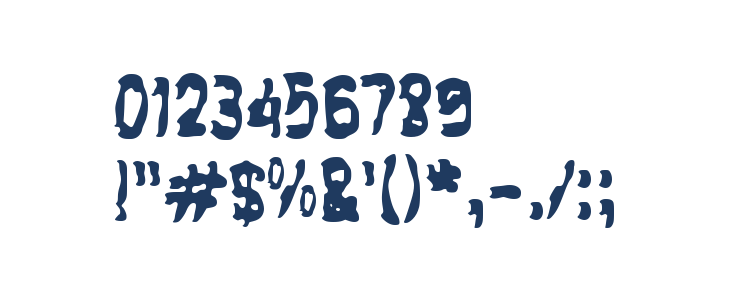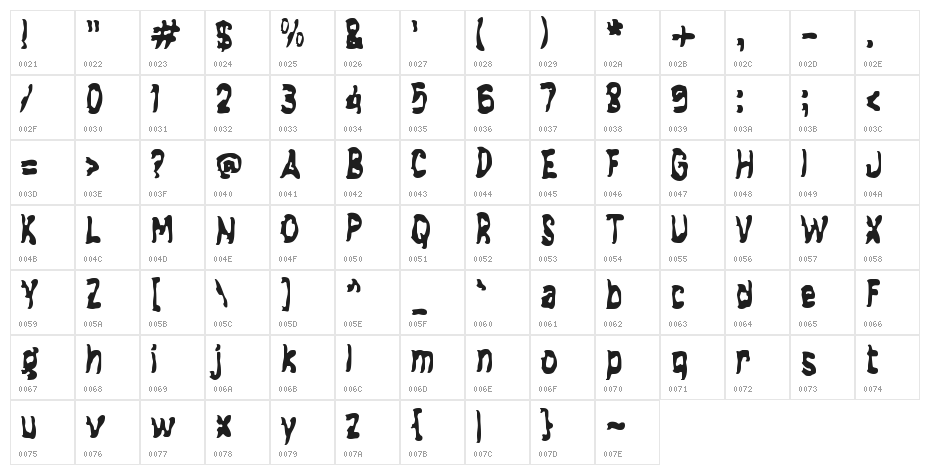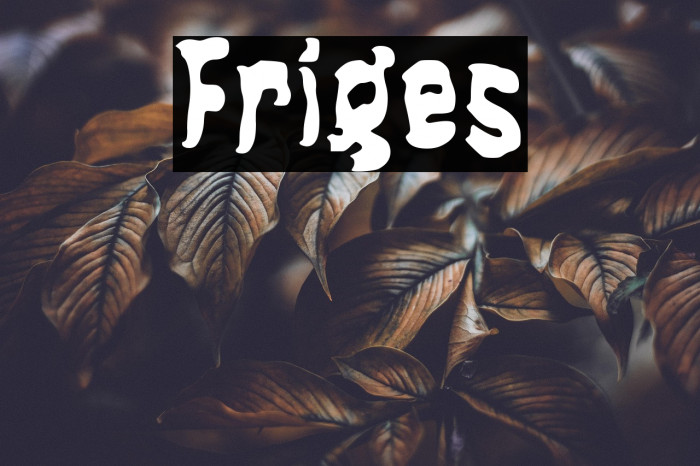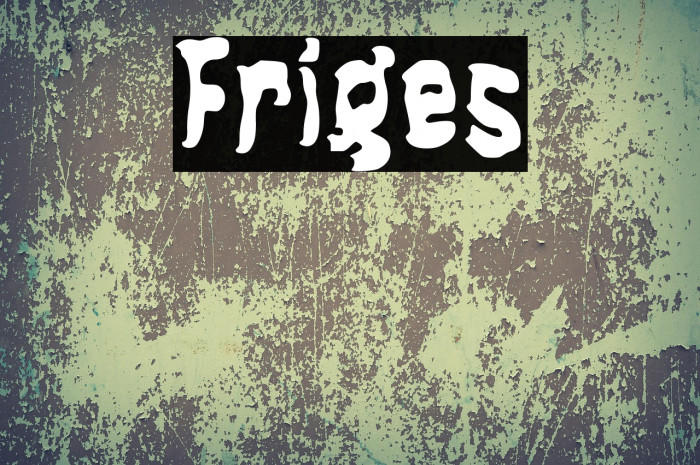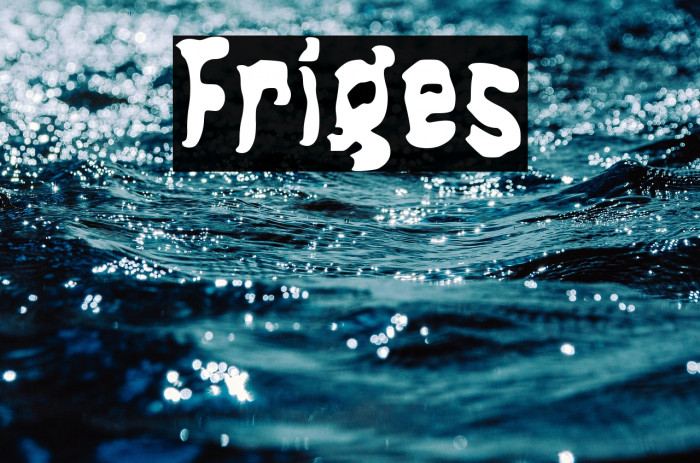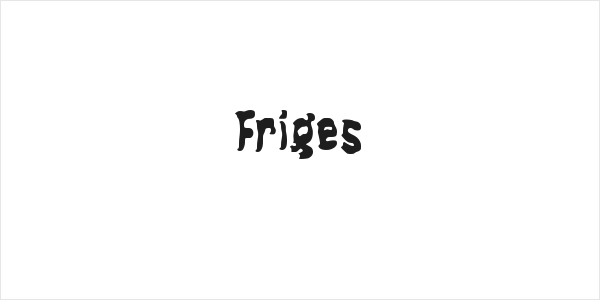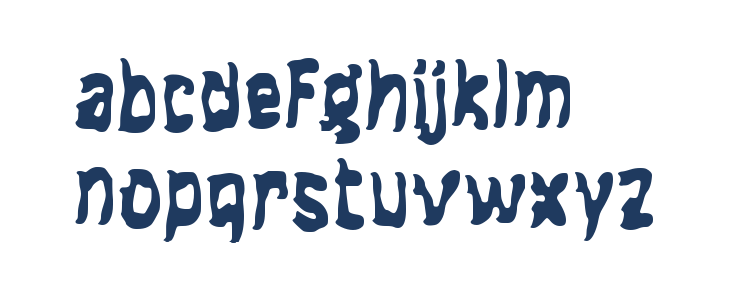
Friges Font
Friges Description
This font features a bold and playful design with irregular, organic shapes that give it a hand-drawn appearance. The characters are thick and uneven, creating a sense of movement and energy. The uppercase and lowercase letters maintain a consistent style, with exaggerated curves and a slightly distorted look. Numbers and special characters follow the same whimsical design, making the font suitable for creative and informal projects. Its unique style stands out, making it ideal for attention-grabbing headlines or artistic designs.
| Overall Style | Playful, Artistic |
| Use Case | Headlines, Artistic designs, Informal branding |
| Proposed Projects | Ideal for children's books, playful branding, artistic posters, and creative social media graphics. |